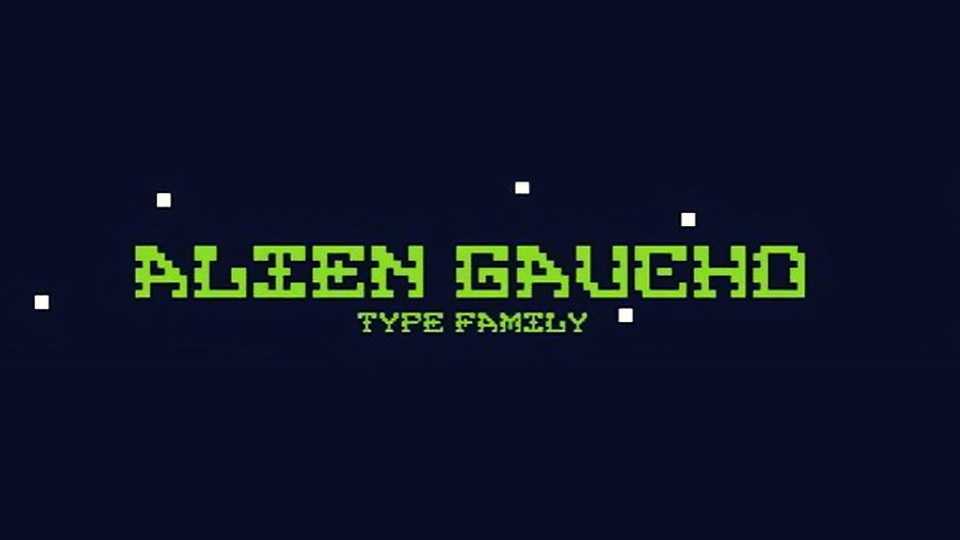
Download Alien Gaucho font, a completely 8-Bit typeface inspired by western cowboys and extra-terrestrial aliens. The font is crafted with pixelated precision, offering a unique blend of retro vibe and futuristic charm.
Designer: Charles G. Brown